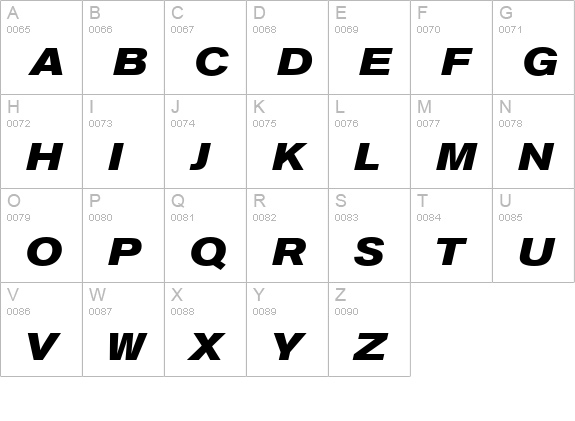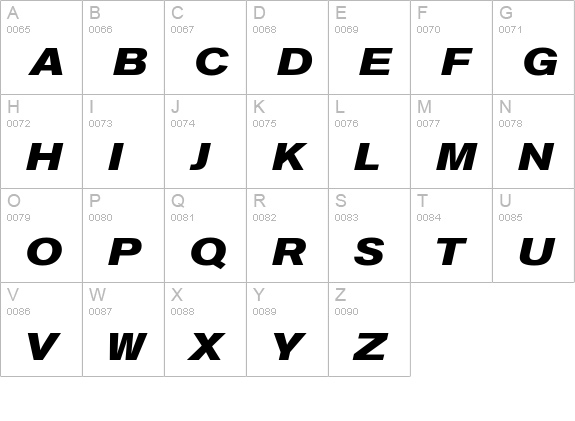
Ancona-Ex-Heavy-Italic is a heavy, high-impact, italic variant in the Ancona typeface family \xE2\x80\x94 well suited to high-impact headlines, posters, and display advertising.
Ancona-Ex-Heavy-Italic is a striking and bold font that exudes elegance and sophistication. Its thick strokes and slanted italic design make it perfect for creating eye-catching headlines and attention-grabbing designs. This font is ideal for projects that require a strong and impactful typographic statement. Best of all, Ancona-Ex-Heavy-Italic is available for free download at FontsMarket.com. This means you can easily add this stylish font to your collection without any cost. Don't miss out on the opportunity to enhance your designs with the distinctive charm of Ancona-Ex-Heavy-Italic. Download it today and elevate your creative projects to new heights.